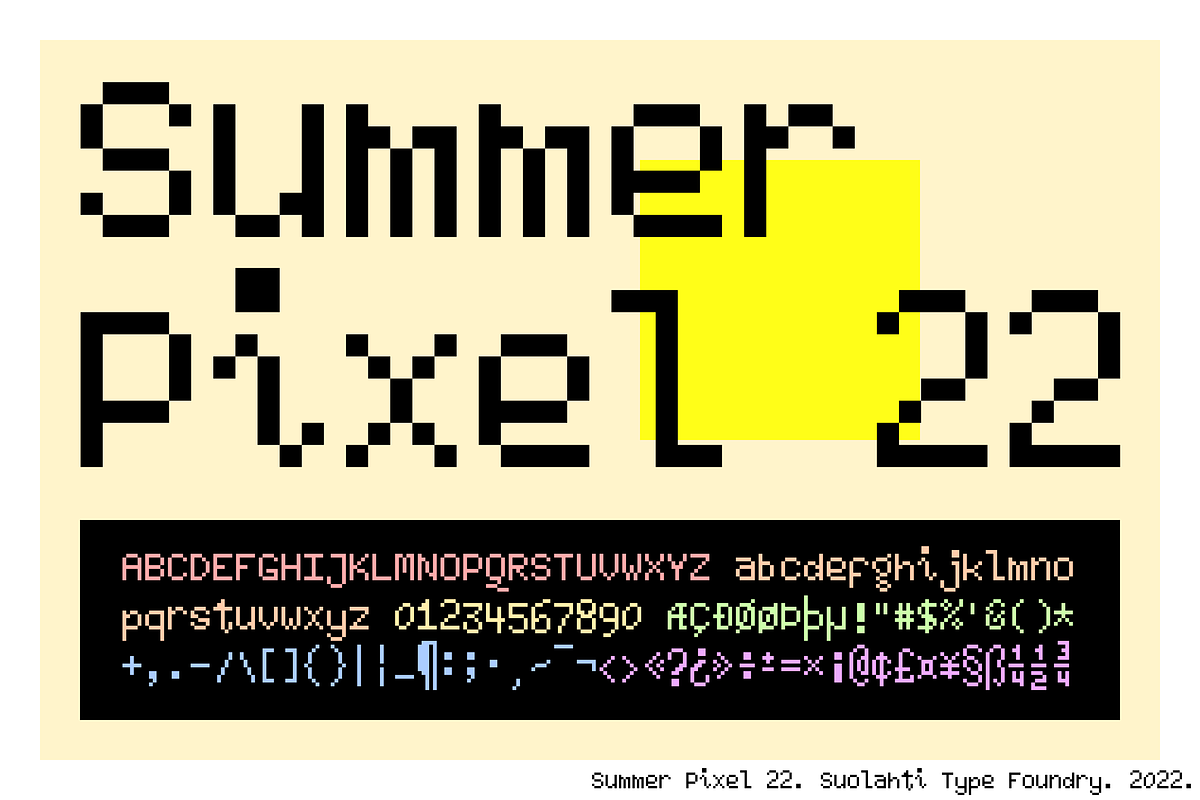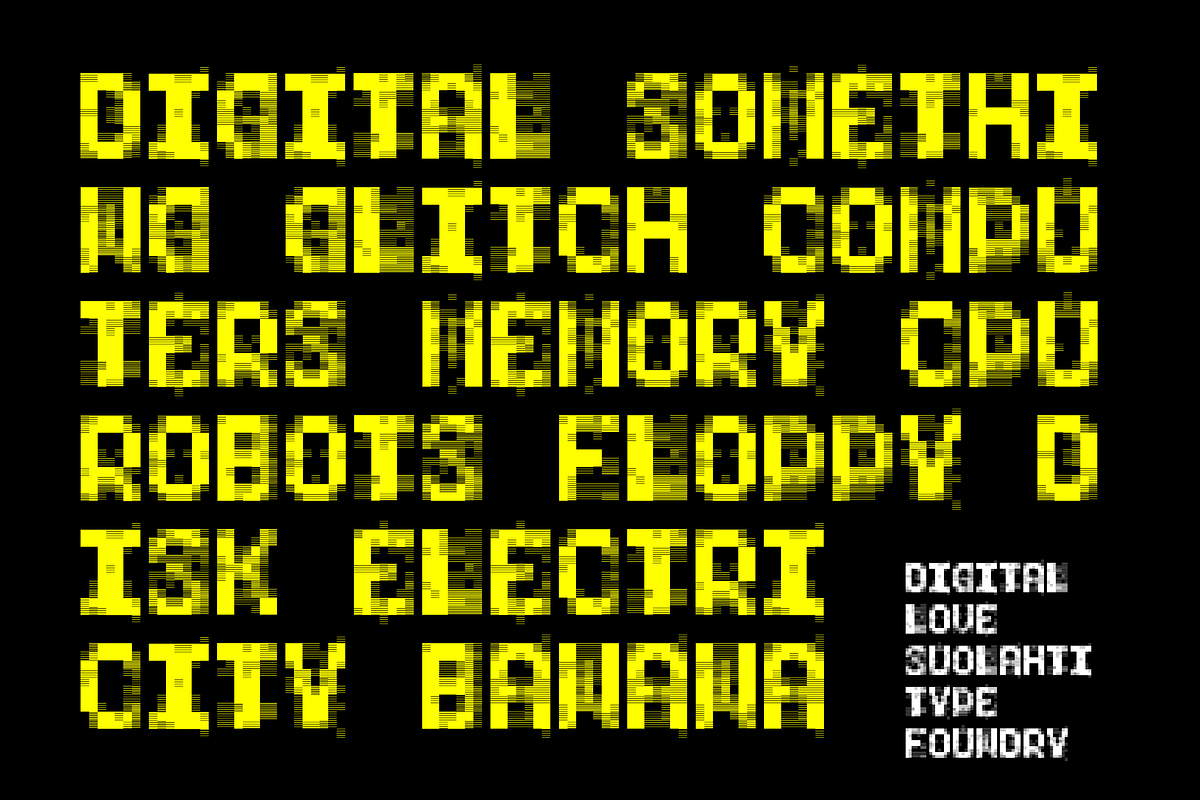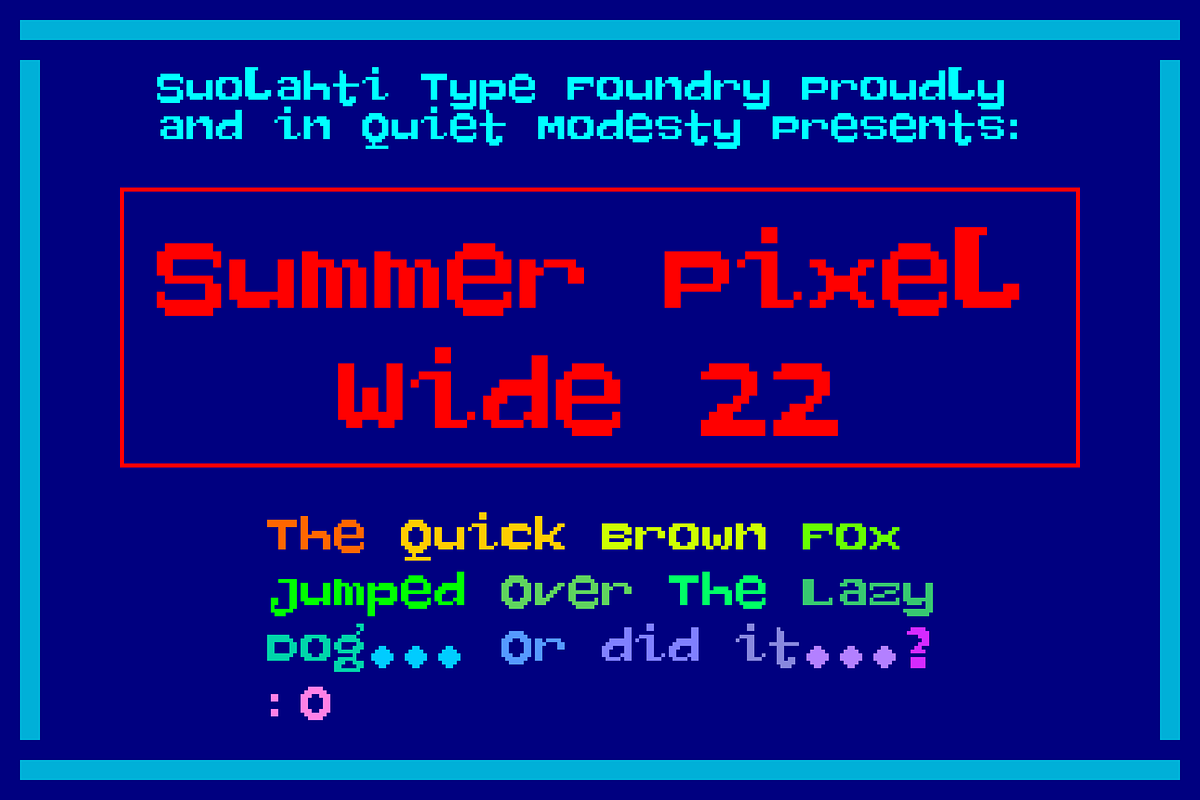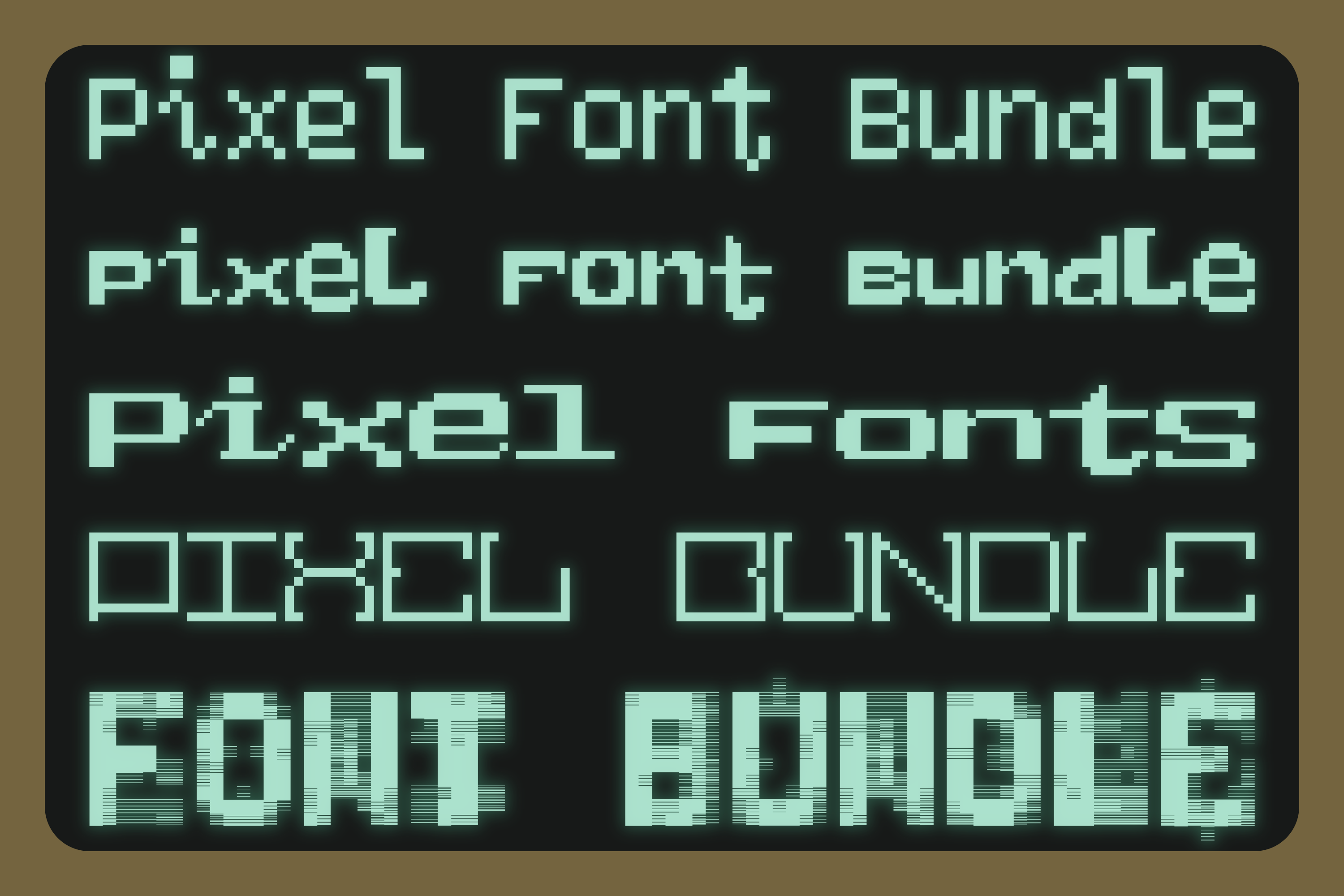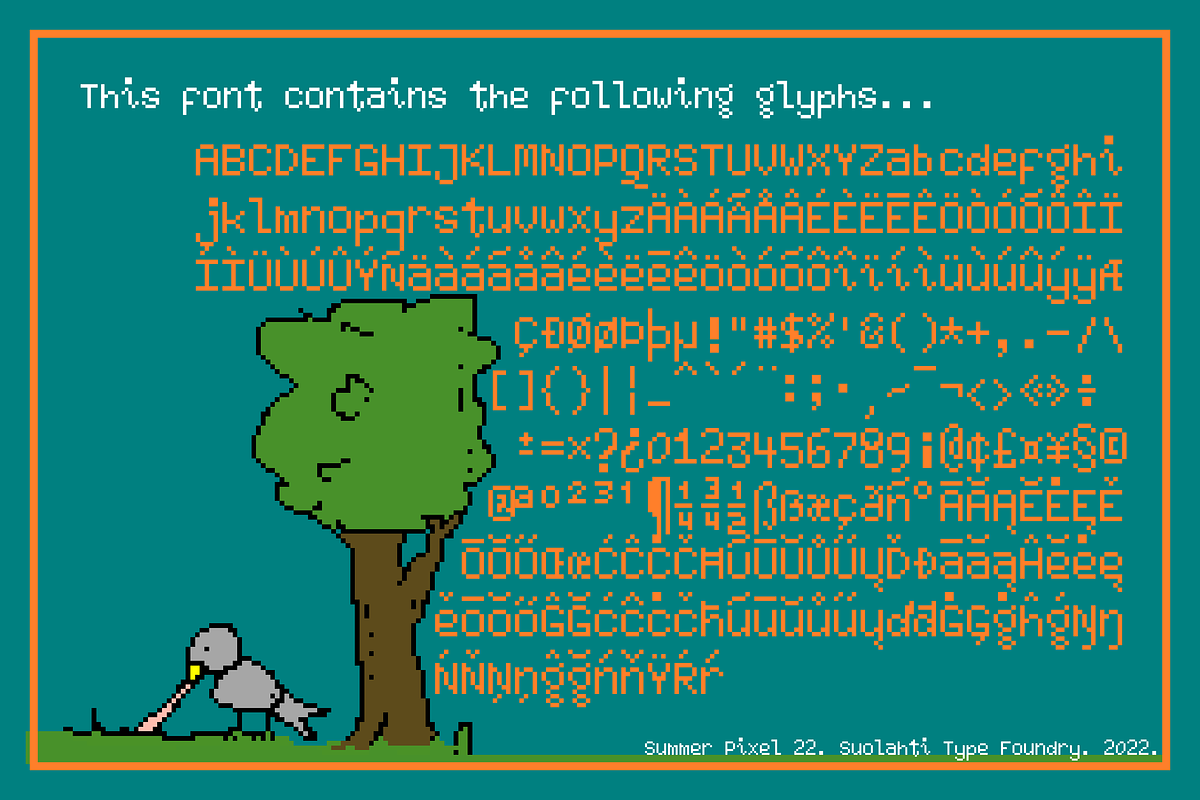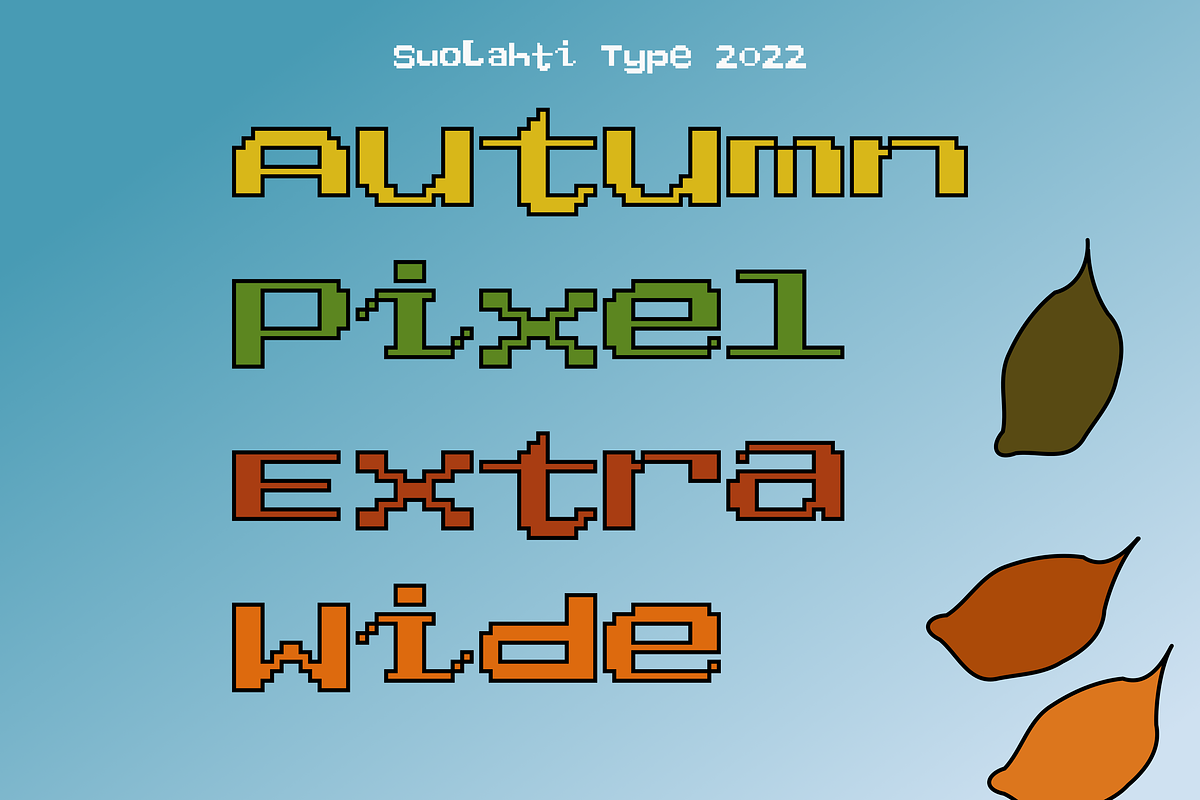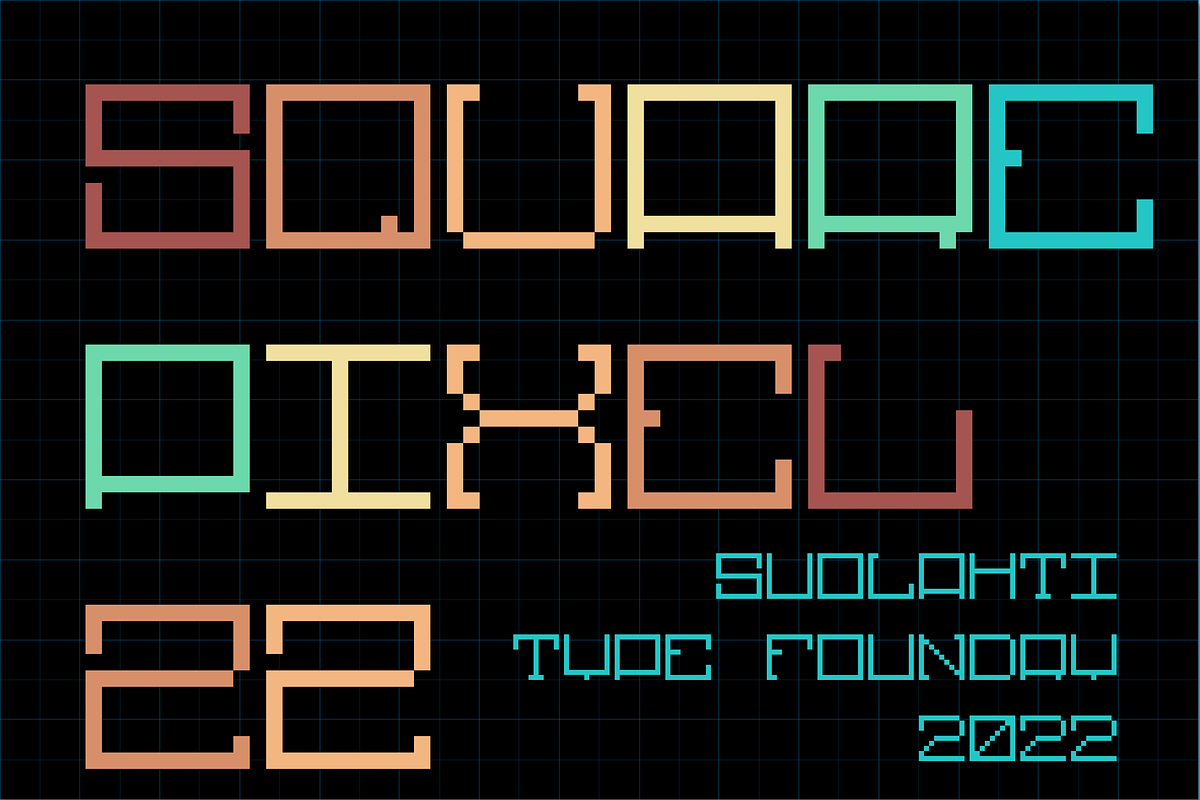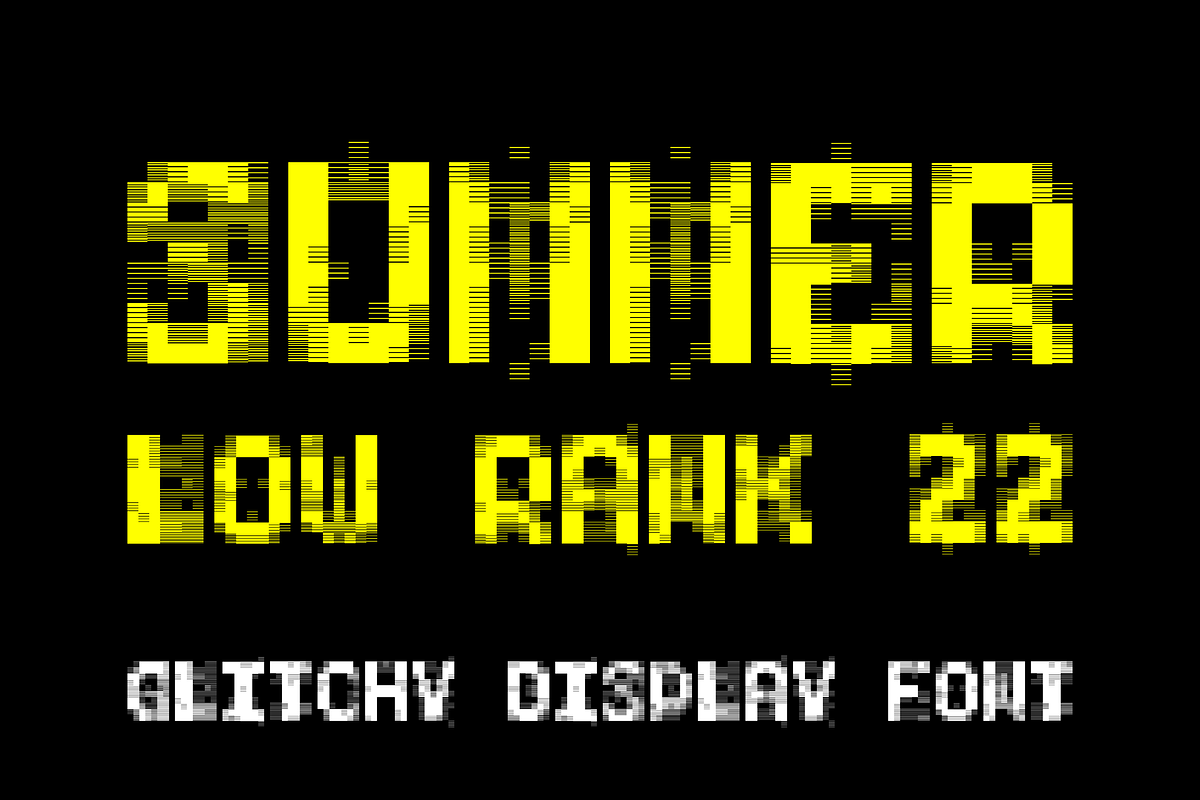
Pixel Font Bundle (+1 glitchy font)
This font contains 5 five fonts: 4 pixel fonts and 1 glitchy computer style font. Fonts included are:
- Summer Pixel 22
- Summer Pixel Wide 22
- Autumn Pixel Extra Wide 22
- Square Pixel 22
- Summer Low Rank 22